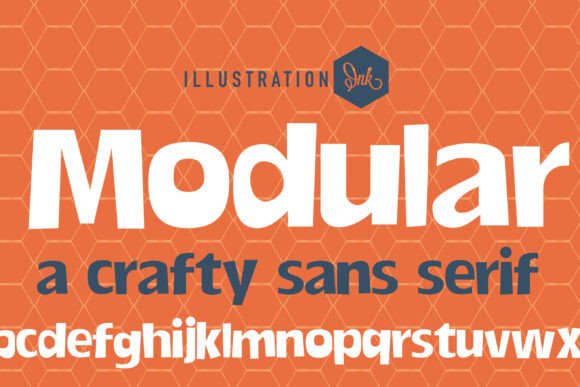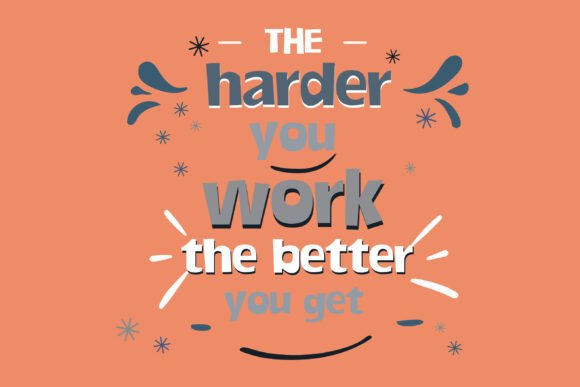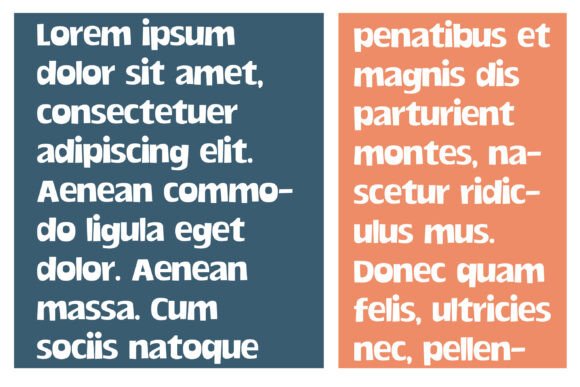
Modular Font
About the Modular Font
The wait is over! The incredible Modular Font is now available for your design toolkit. This hand-crafted font is a whimsical sans serif with chunky, thick, whimsical lettering.
Modular Font’s playful, chunky style is ideal for headlines, short text blocks on posters, and branding elements where a bold, friendly personality is desired. It works exceptionally well for children’s products, playful brands, or projects requiring a touch of whimsical charm. However, its thick strokes and less-than-optimal x-height make it unsuitable for body text or long paragraphs; readability suffers at smaller sizes.
For effective pairings, consider a clean, geometric sans-serif like Futura for a balanced contrast, or a more traditional serif like Garamond for a sophisticated juxtaposition. A script font with a similar weight to the Modular Font’s thicker strokes could add an element of handwritten flair while maintaining visual harmony. Avoid pairing with overly delicate or thin fonts which would diminish its impact.
The overall personality of Modular Font is best described as bold, friendly, and playful, making it an excellent choice for projects seeking a lighthearted and approachable feel.
Modular Font Usage Examples
Modular Font Example